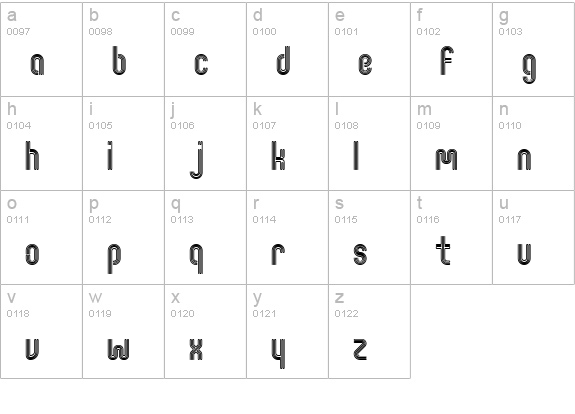
ShineOn font is a stunning and elegant typeface that is perfect for adding a touch of sophistication to your designs. With its clean lines and graceful curves, this font exudes a sense of style that is both modern and timeless. Featuring a unique blend of classic and contemporary elements, ShineOn font is versatile enough to be used in a variety of design projects, from branding and logos to invitations and posters. Its elegant letterforms make it ideal for adding a touch of elegance and refinement to any design. But what sets ShineOn font apart is not just its exceptional design, but also the fact that it is free. That's right, you can download this beautiful font for absolutely no cost at FontsMarket.com. With ShineOn font, you don't have to compromise on quality or style just because you're on a budget. This font offers the perfect combination of beauty and affordability, making it a valuable asset for designers, entrepreneurs, and creatives of all kinds. So why wait? Start using ShineOn font today and elevate your designs to new heights. Download it for free at FontsMarket.com and unlock a world of possibilities for your creative projects.